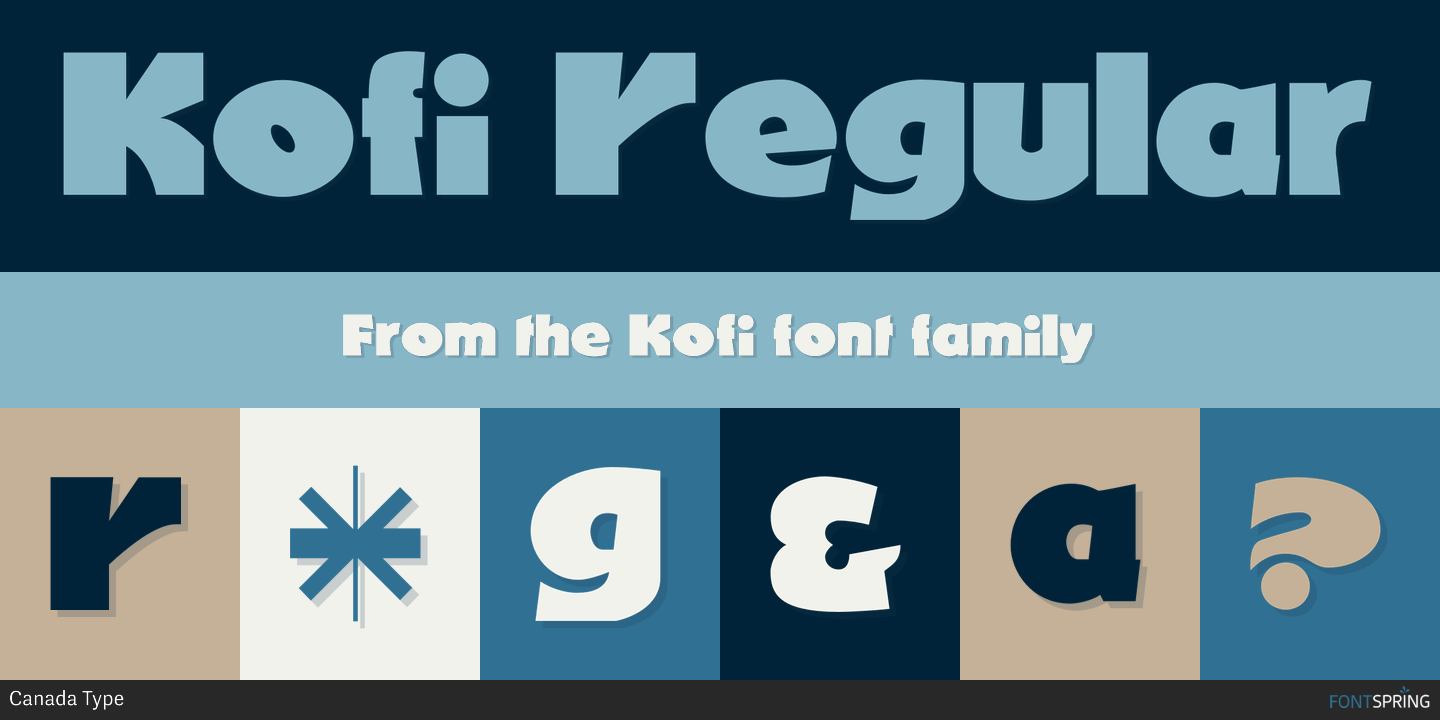
Kofi is a display and kids font published by Canada Type.
Just when you thought every possible fat alphabet has already been done, Kofi shows you that there still are plenty of good ideas left in the genre!
Kofi is simply fat, fun letters that scream for attention and promise delight. This package ships with two fonts, the second constituting a busload of alternates.